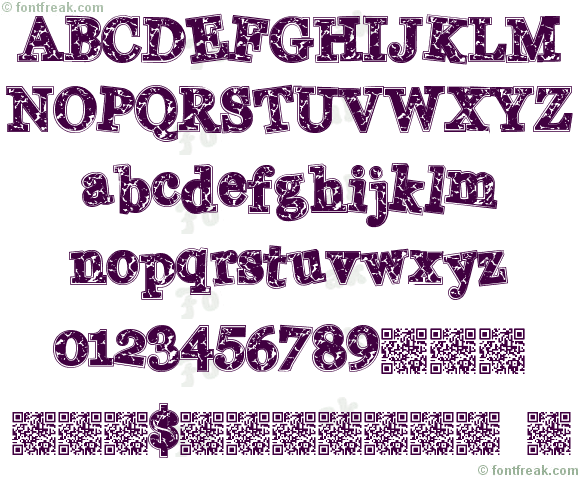
CollegeMovie
The CollegeMovie font by Xerographer Fonts is a distinctive display typeface that brings a playful yet bold character to any design. This font features a unique combination of thick and thin strokes, creating a dynamic visual appeal that captures attention. The slightly irregular edges and the overall texture evoke a sense of nostalgia, reminiscent of classic college-themed designs and movie posters. Its generous spacing enhances readability while maintaining a fun and casual vibe, making it perfect for a variety of creative applications.
Ideal for use in movie posters, promotional materials for college events, and themed merchandise, the CollegeMovie font truly shines in settings that require a lively and youthful touch. It can also be utilized effectively in invitations for casual gatherings, such as college reunions or film screenings, where a touch of nostalgia and creativity is desired. Graphic designers and small business owners looking to infuse their projects with a sense of energy and excitement will find this font particularly appealing. Content creators can leverage its unique style to enhance their branding or social media graphics, ensuring they stand out in a crowded digital space.
What sets the CollegeMovie font apart is its ability to blend fun with functionality. The font captures the essence of collegiate life and movie culture, making it a versatile choice for a range of creative endeavors. With its freeware license, the CollegeMovie font free download allows users to experiment freely without the constraints of licensing fees. Whether you are designing for a local event or a larger project, this font promises to add a memorable and engaging element to your work, making it a valuable asset in any designer's toolkit.